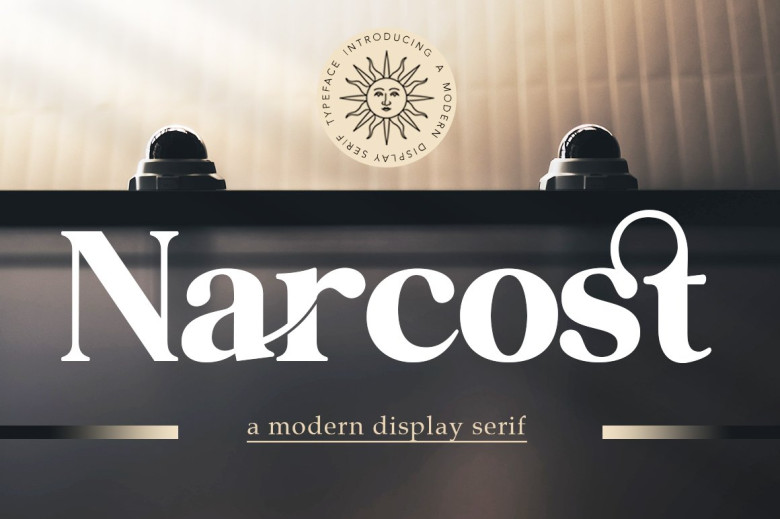
Narcost Font
Narcost is a stylish vintage modern serif typeface with OpenType features to provide endless customization. Select between alternate letters and ligatures as you please to create a luxurious display, both uppercase and lowercase letters can be chosen at will to make Narcost truly personal to you.
This versatile serif family features 35 ligatures and 61 alternates to add personality and vibrancy to any design project. Perfect for branding projects such as logo design, clothing branding, packaging design, magazine headers, advertising or T-shirt graphics.
Narcost Modern Serif Font